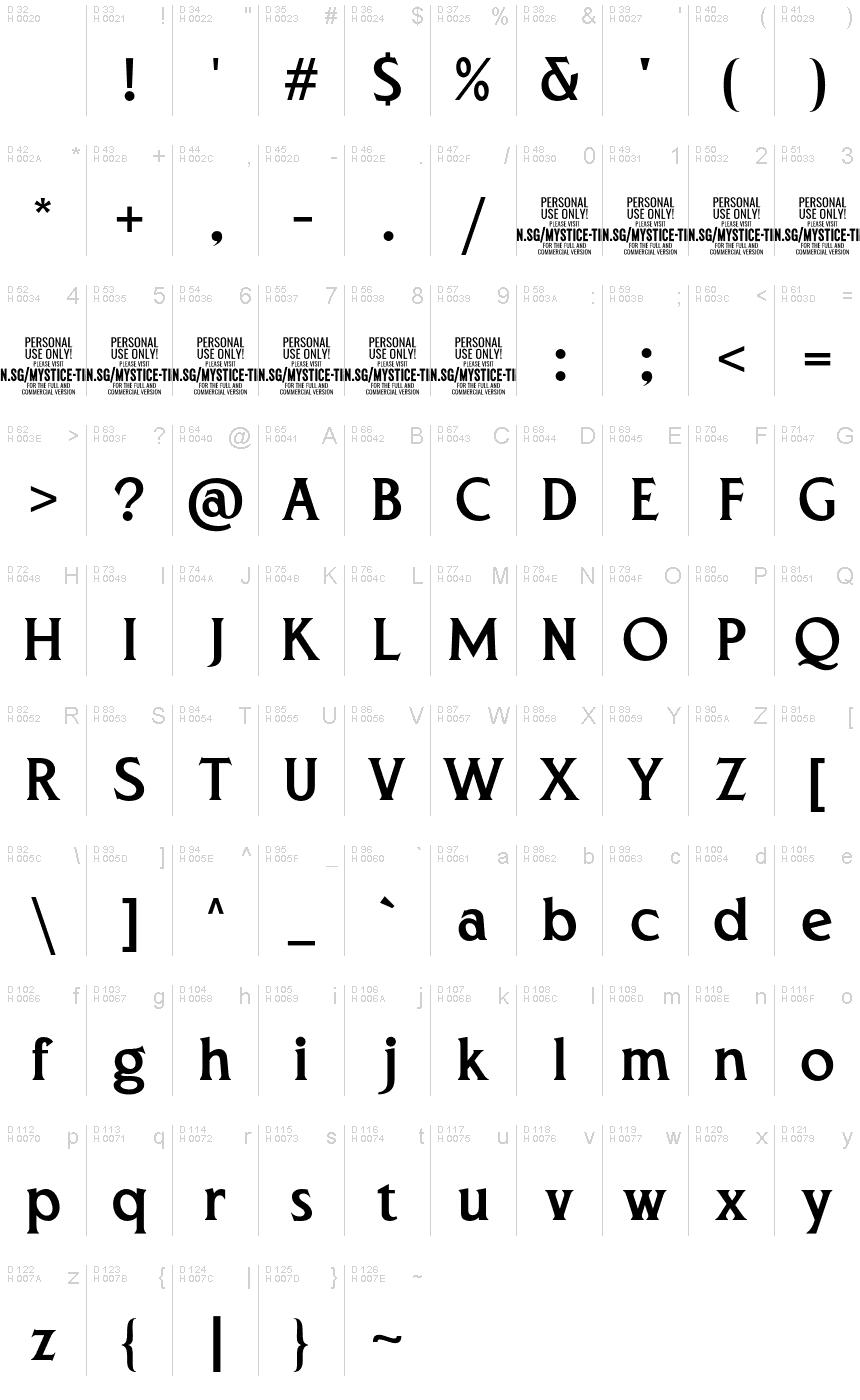
Mystice Times PERSONAL USE Regular
Step into the enchanting realm of Mystice Times, a retro-inspired serif font by Mans Greback. This captivating typeface embodies the allure of 80s thriller movies, combining a sense of mystery with a touch of professionalism. With its slightly eccentric and unpredictable characters, Mystice Times exudes an irresistible charm reminiscent of 70s funk and 80s charisma.
Whether you're working on a vintage-inspired poster, a book cover for a suspenseful novel, or designing an immersive website with a nostalgic twist, this font will transport your audience to another era. With advanced OpenType functionality and extensive lingual support for Latin-based languages worldwide, Mystice Times offers full control and customizability for all your creative projects.
Let this timeless and captivating font add an air of intrigue to your designs.